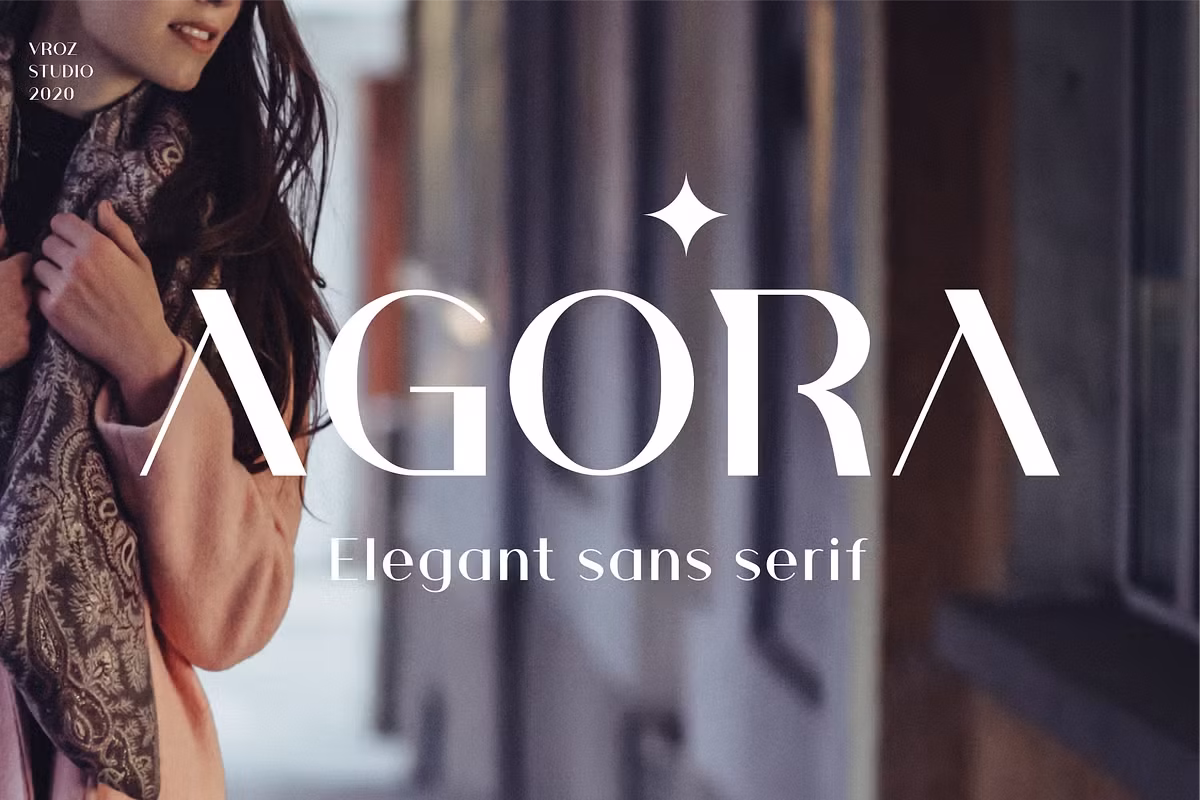
AGORA - Elegant Typeface Free Download
AGORA - Elegant Typeface Free Download is a sophisticated and timeless font designed to elevate your projects with an air of refinement and class. With its clean lines and graceful letterforms, this elegant typeface is perfect for high-end branding, editorial designs, invitations, and luxurious websites. Whether you're designing a logo, creating a stylish invitation, or working on premium product packaging, AGORA - Elegant Typeface Free Download offers the opportunity to explore its polished beauty in personal or concept work before purchasing a commercial license. Its timeless charm and versatility ensure it will add elegance to any design. Make a lasting impression with AGORA, where elegance meets modern design.